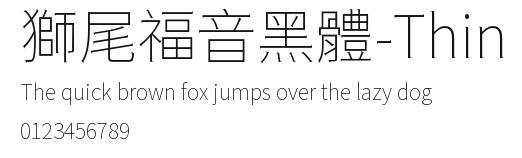
• Font Name: 獅尾福音黑體-Thin
• Font Style: Thin
• Full Font Name: 獅尾福音黑體-Thin
About 獅尾福音黑體-Thin.ttf
獅尾福音黑體-Thin.ttf is a modern, elegant sans-serif font designed for ultimate readability and visual harmony. Perfect for branding, headlines, web design, and print materials.